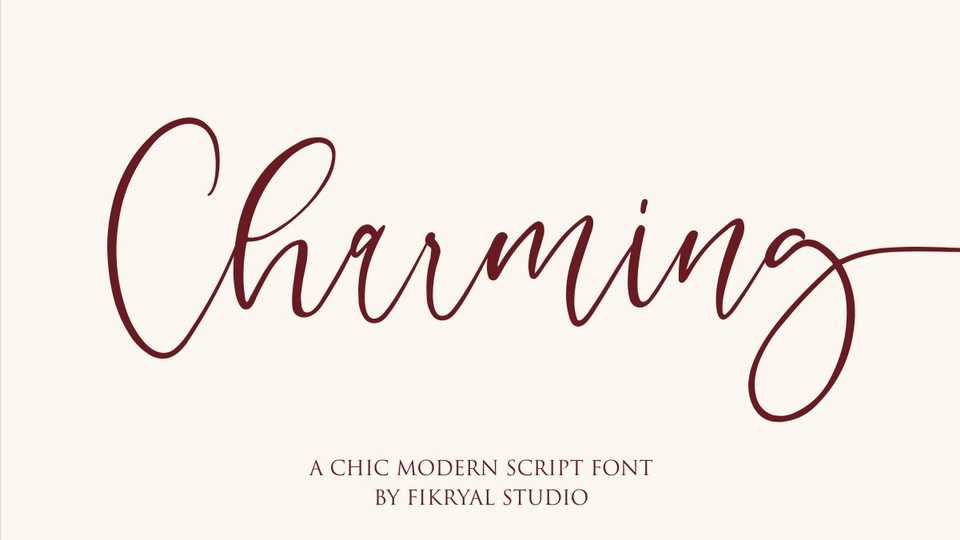
Download Charming font, a chic modern script with beautiful beginning and ending swashes. Charming font is elegant, but very casual style suitable for your various design needs.